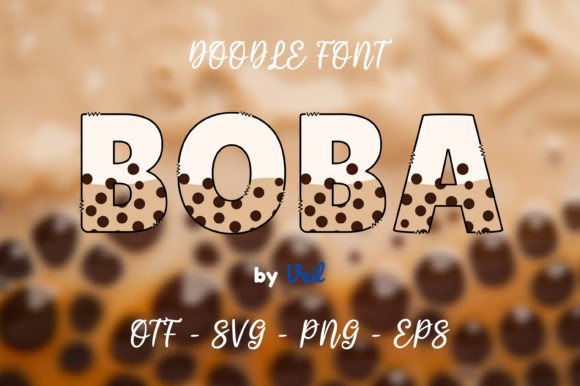
The Boba Font: A Playful Addition to Your Creative Projects
I’ll never forget the time I was working on a design project for a trendy cafe, and I just couldn’t find the right font to capture their fun and artistic vibe. That’s when I stumbled upon the Boba font, and it instantly became the perfect fit. In this article, I’ll share my experience with this cool color font and show you how to make the most of it in your creative projects.
An Honest Review of Boba Font
What I Love About Boba Font
• ✨ Unique color options: Boba font offers a range of colors that can add a pop of fun to your designs.
• ✅ Playful feel: The font’s playful style is perfect for creative projects that need a bit of whimsy.
• 💡 High versatility: Boba font can be used for a wide range of projects, from social media graphics to branding materials.
While Boba font is an excellent choice for many projects, there are a few things to keep in mind:
• 🤔 Color consistency: When using Boba font, make sure to check the color consistency across different platforms and devices.
• ⚠️ Legibility: As with any decorative font, ensure that the Boba font is legible in your design, especially when using smaller font sizes.
The Backstory of Boba Font
Boba font was designed with the goal of creating a playful, artistic font that could be used in a wide range of creative projects. The designer wanted to capture the fun and whimsy of boba tea culture and translate it into a unique font style.
Q: What is Boba font?
Boba font is a cool color font designed to convey a playful or artistic feel.
Q: Is Boba font available in different languages?
Boba font may not support all languages, but it does offer a range of characters and glyphs to help with multilingual designs.
Q: Can I customize the colors of Boba font?
Yes, Boba font offers a range of color options. You can experiment with different colors to find the perfect fit for your design.